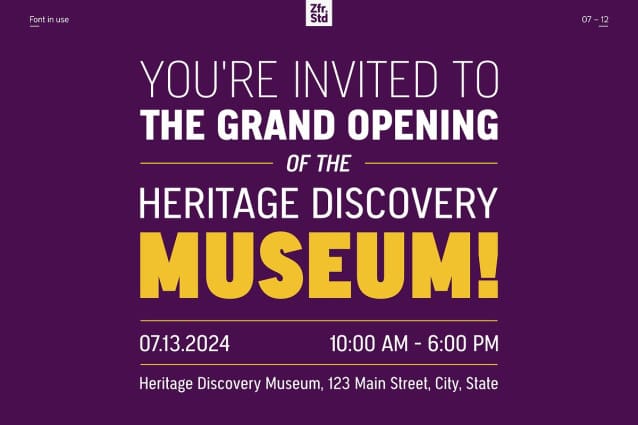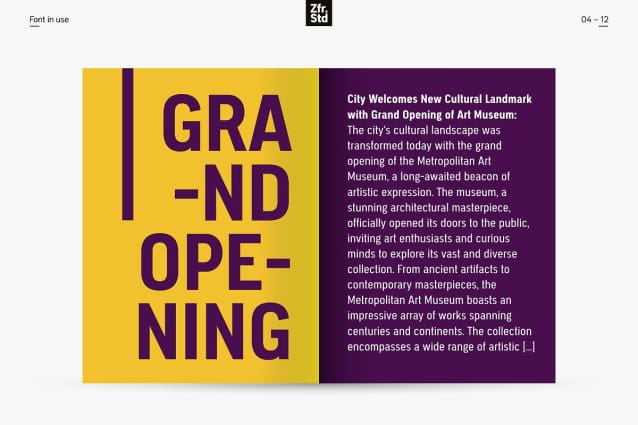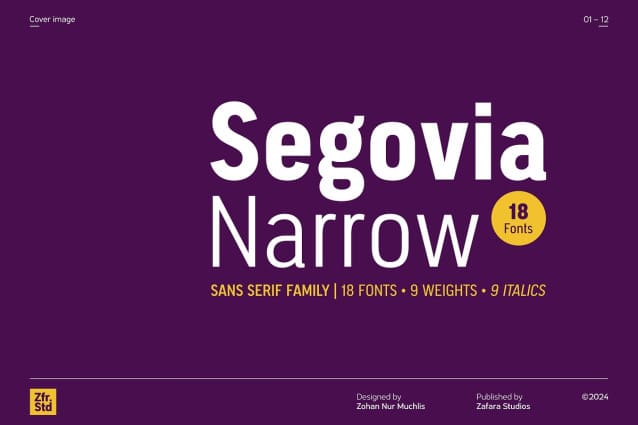
Segovia Narrow Font
Segovia Narrow is a sans-serif font designed specifically for headlines and titles. Comes with 9 weights and matching italics, making it 18 styles. It makes perfect for all creative projects. Also, some alternative glyphs will be an attractive choice. Segovia is the perfect choice for logos, titles, headlines and short blocks of text.